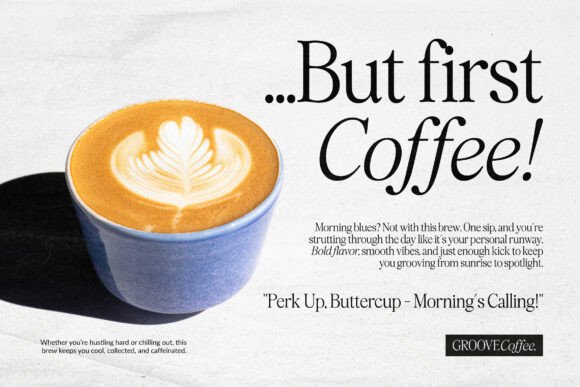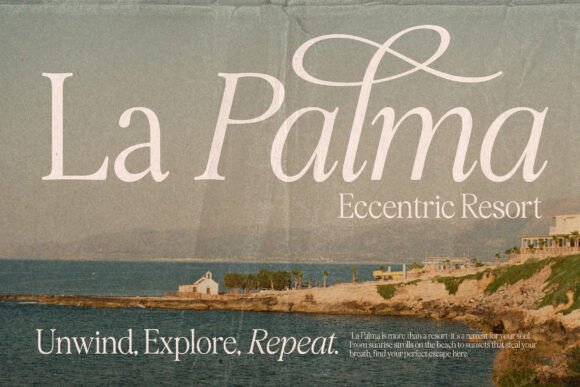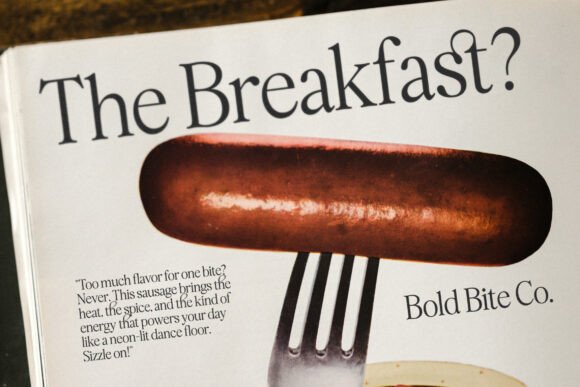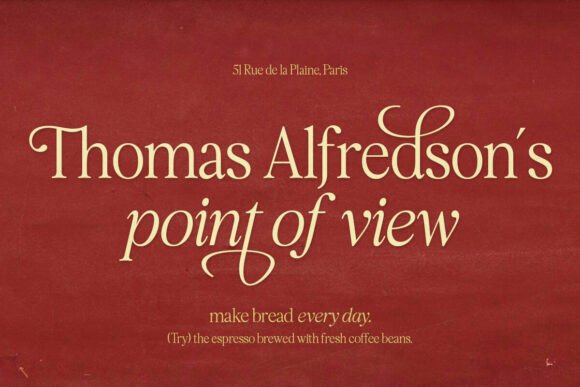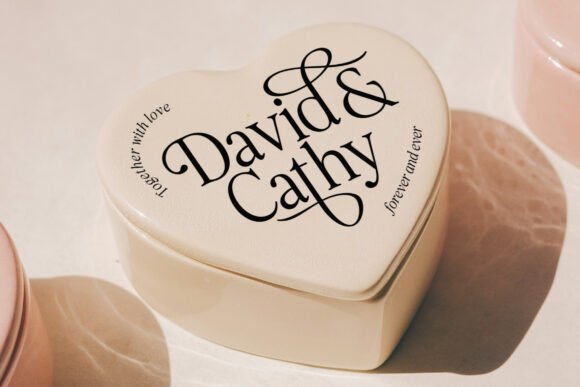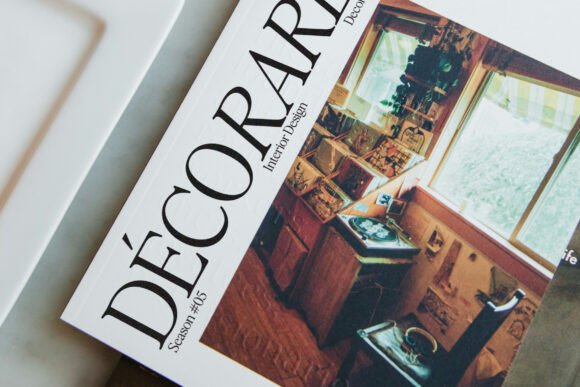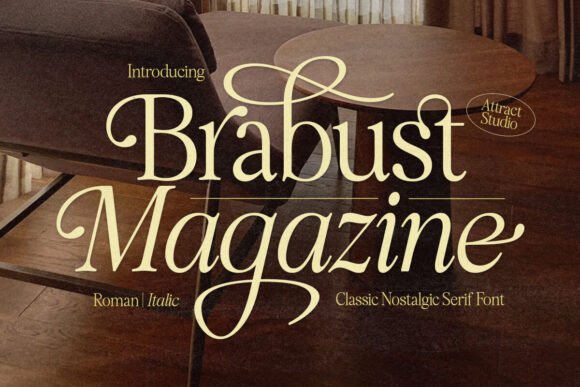
The Timeless Elegance of Brabust Magazine Font
I’ll never forget the time I was working on a project for a high-end fashion client, and I was struggling to find the perfect font to convey the luxury and sophistication they desired. The client was adamant that the font had to be elegant, classy, and reminiscent of the 80s. After hours of scouring font libraries and trying out different combinations, I stumbled upon Brabust Magazine Font. It was love at first sight! 💫
With its classic modern touch, tight kerning, and spacing, Brabust Magazine Font instantly transported me back to the era of iconic fashion magazines and high-end advertising. The font’s stunning combination of regular and italic styles made it perfect for titles, introductions, and sections I wanted to highlight. I knew right then and there that I had found the perfect fit for my project.
• ✨ Classy and elegant serif font variant with a timeless appeal
• ✅ Tight kerning and spacing for a more aesthetic look
• 💯 Stunning combination of regular and italic styles for versatility
• 🎯 Perfect for titles, introductions, and highlighted sections
While Brabust Magazine Font is an exceptional font, there are a few minor quirks to be aware of:
• ⚠️ Some users may find the font a bit too condensed for certain design applications
• 🤔 Limited availability of OpenType features and glyphs compared to other fonts
Brabust Magazine Font was inspired by the iconic fashion magazines of the 80s, such as Vogue and Elle. The font’s designer aimed to create a classy and elegant serif font that would evoke the luxury and sophistication of that era. With its tight kerning and spacing, Brabust Magazine Font is perfect for creating a formal and professional look in print designs, such as newspapers, magazines, and brochures.
Q: What is Brabust Magazine Font?
A: Brabust Magazine Font is a classy and elegant serif font variant with a timeless appeal, inspired by the iconic fashion magazines of the 80s.
Q: What is Brabust Magazine Font used for?
A: Brabust Magazine Font is perfect for titles, introductions, and highlighted sections in designs, such as fashion branding, luxury advertising, and print materials like newspapers, magazines, and brochures.
Q: Is Brabust Magazine Font available in multiple styles?
A: Yes, Brabust Magazine Font comes in regular and italic styles, providing versatility and flexibility for your design projects.